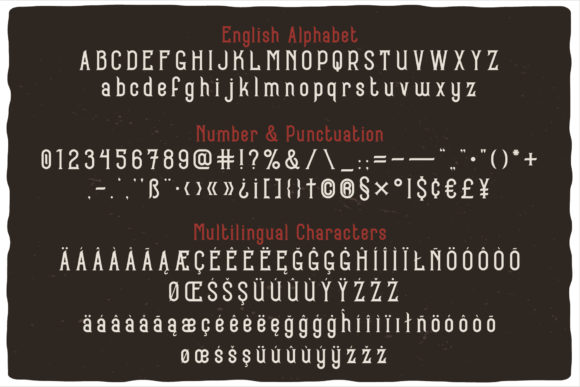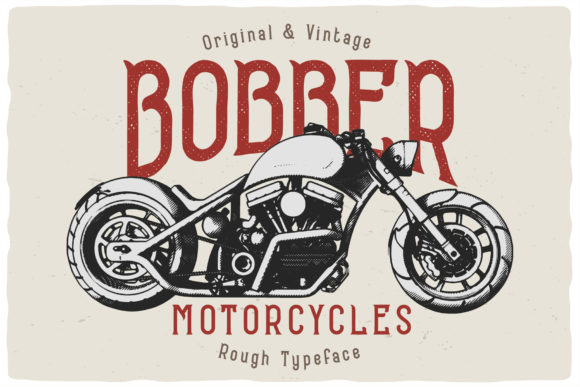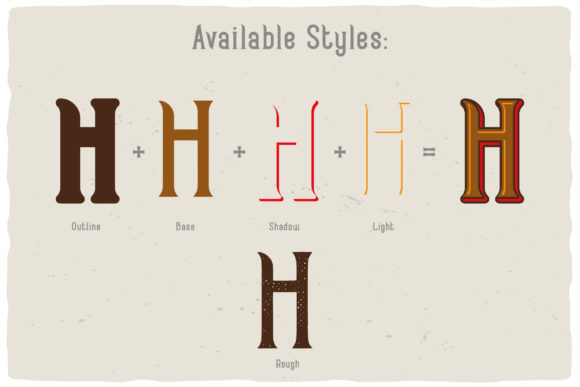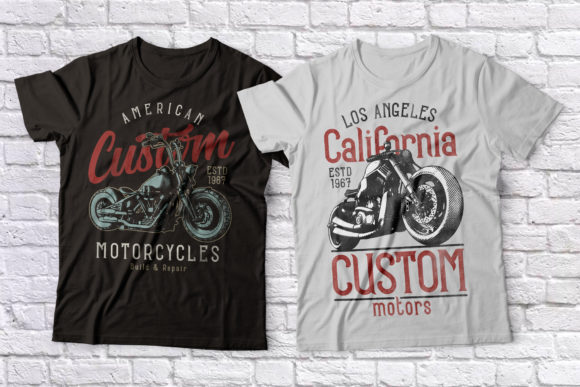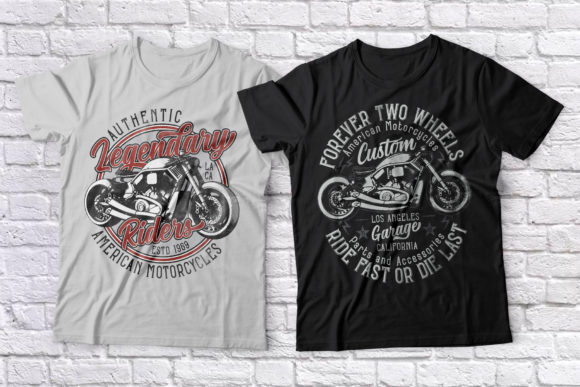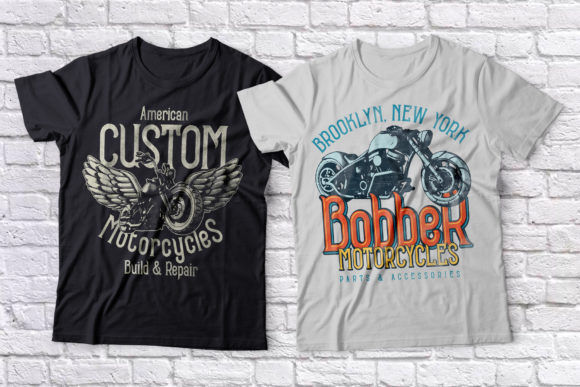
Introducing Bobber Motorcycles Font: The Ultimate Retro-Styled Display Font
Are you a designer or crafter looking for a font that can add a touch of vintage power to your projects? Look no further than Bobber Motorcycles Font. This bold and retro-styled display font is perfect for racing designs, sporting events, or any other project that requires a strong, nostalgic feel.
What is Bobber Motorcycles Font?
Bobber Motorcycles Font is a carefully crafted display font that embodies the spirit of classic motorcycles and the open road. Its bold, chunky letters are reminiscent of the iconic typography found on vintage motorcycle posters, signs, and advertisements. With its rugged, distressed texture, this font is sure to add a unique and eye-catching element to any design.
Key Features of Bobber Motorcycles Font
• Bold and Retro-Styled: Bobber Motorcycles Font features bold, chunky letters with a retro flair that’s perfect for making a statement.
• Distressed Texture: The font’s distressed texture gives it a worn, vintage look that’s perfect for adding a touch of nostalgia to your designs.
• Highly Versatile: Bobber Motorcycles Font can be used for a wide range of projects, from racing designs and sporting events to posters, flyers, and more.
• Easily Customizable: The font is highly customizable, allowing you to adjust the lettering, spacing, and other elements to fit your specific design needs.
Uses for Bobber Motorcycles Font
Bobber Motorcycles Font is an incredibly versatile font that can be used in a variety of contexts. Here are just a few ideas to get you started:
• Racing Designs: Add a touch of speed and power to your racing designs with Bobber Motorcycles Font.
• Sporting Events: Use the font to create eye-catching posters, flyers, and other promotional materials for sporting events.
• Vintage-Themed Designs: Bobber Motorcycles Font is perfect for creating vintage-themed designs, such as posters, advertisements, and packaging.
• Logos and Branding: The font can also be used to create bold, eye-catching logos and branding materials for businesses and organizations.
Why Choose Bobber Motorcycles Font?
With so many fonts on the market, why choose Bobber Motorcycles Font? Here are just a few reasons:
• Unique Style: Bobber Motorcycles Font has a unique, one-of-a-kind style that’s sure to set your designs apart.
• High-Quality Design: The font is carefully crafted with high-quality design elements, ensuring that it looks great in any context.
• Easily Readable: Despite its bold, chunky letters, Bobber Motorcycles Font is surprisingly easy to read, making it perfect for use in a variety of contexts.
Bobber Motorcycles Font is a bold, retro-styled display font that’s perfect for adding a touch of vintage power to your designs. With its distressed texture, highly versatile design, and easily customizable elements, this font is sure to become a go-to choice for designers and crafters. Whether you’re working on a racing design, sporting event, or vintage-themed project, Bobber Motorcycles Font is the perfect choice.